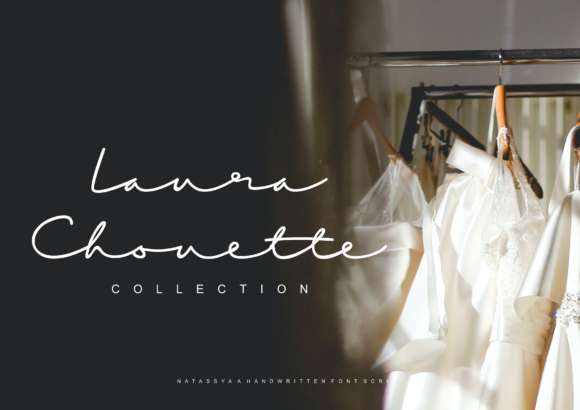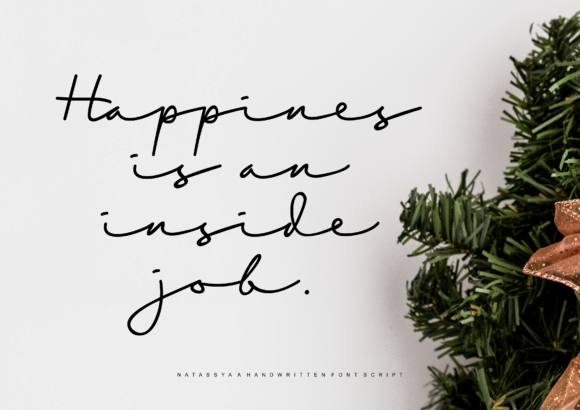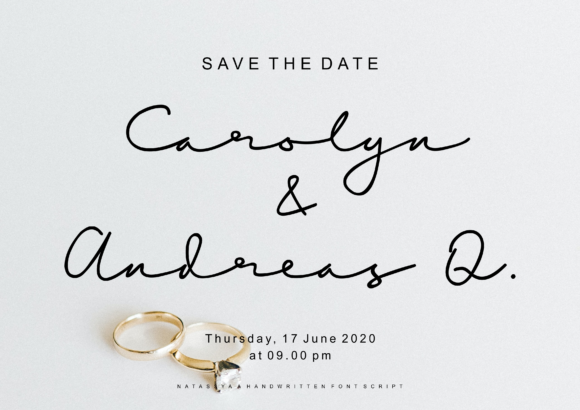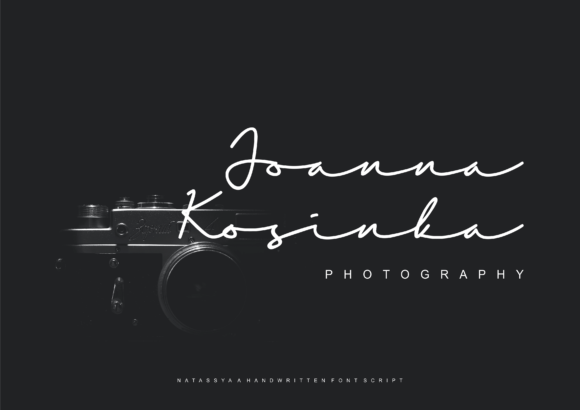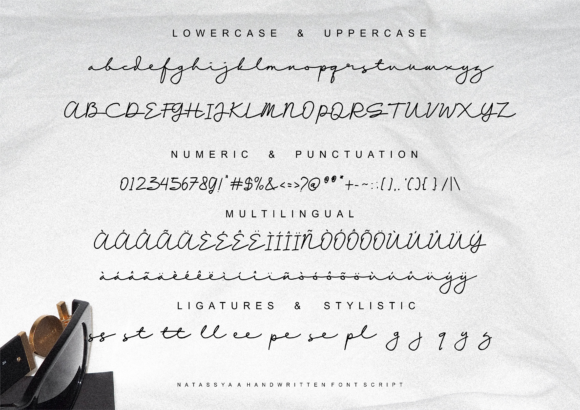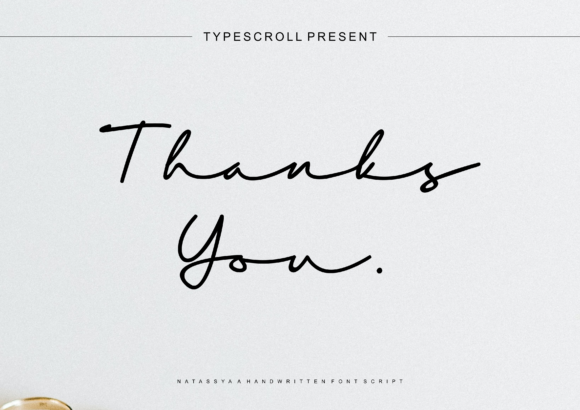
Introduction to Natassya Font
Have you ever stared at a blank page, pencil in hand, trying to find the perfect words to express your creative vision? That’s exactly where the magic of typography comes in. As designers, we understand the importance of choosing the right font to elevate our projects and convey the intended message. In this article, we’ll introduce you to a game-changing design resource that will take your creative projects to the next level: Natassya Font.
This enchanting handwritten font is more than just a pretty face – it’s a high-quality design tool that will add a touch of elegance to any project. Whether you’re working on branding, headings, wedding designs, or invitations, Natassya Font is the perfect companion to bring your ideas to life.
Key Features of Natassya Font
- High-quality design resource ideal for creative projects requiring elegant typography.
- Designed with a sophisticated and modern aesthetic, making it suitable for a wide range of applications.
- Unique characteristics include elegant lines, refined shapes, and a harmonious balance of curves and angles.
Honest Review: Natassya Font
As a designer, I’m always on the lookout for high-quality design resources to enhance my creative projects. The Natassya Font has caught my attention lately, and I’m excited to share my honest review with you.
- ✨ Elegant and sophisticated design aesthetic: Natassya Font exudes a sense of luxury and refinement, making it perfect for high-end projects.
- ✨ High-quality typography: The font is crisp, clean, and well-designed, ensuring readability and visual appeal.
- ⚠️ Limited language support: The font may not support all languages, which could be a limitation for international projects.
Overall, I’m impressed with the Natassya Font’s design and quality. While it may have some limitations, it’s a great addition to any designer’s toolkit, especially for creative projects requiring a touch of sophistication.
The Natassya Font is a high-quality design resource ideal for creative projects that require a touch of elegance. With its transparent background, it’s perfect for overlaying text on images or using as a standalone element.
The Natassya Font is ideal for a variety of design projects, including:
- Brand logos and identity